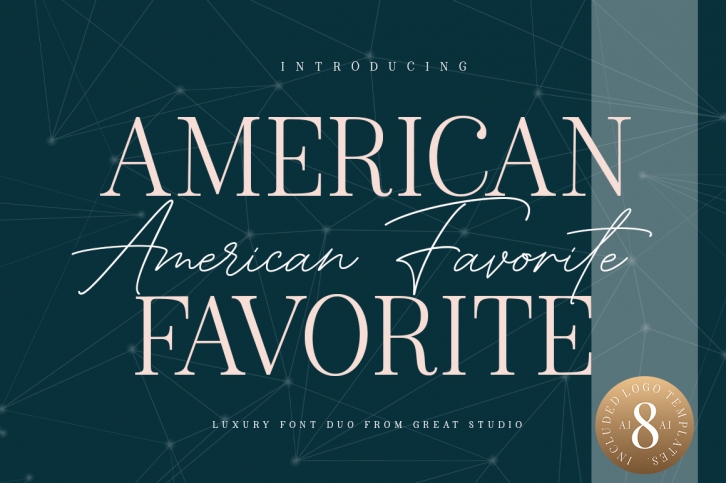
American Favorite is a trendy and unique font with an authentic style. It was designed by Great Studio and it's a great choice for creative people who need such a font. It was released on July 28, 2019 and the file size is 1.19 MB. American Favorite will add an organic vibe to any design idea!